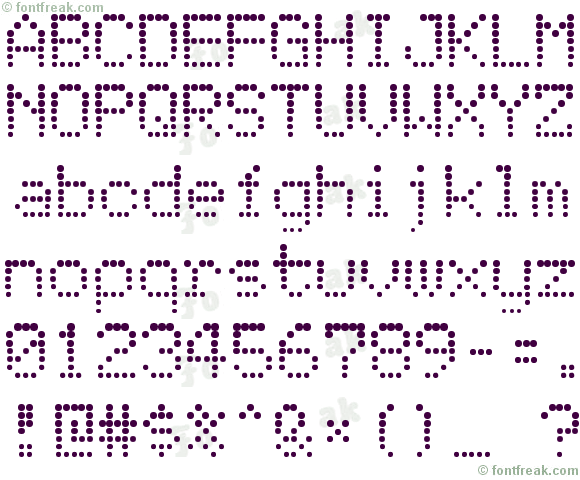
Atomic Clock Radio
The Atomic Clock Radio font by Pizzadude is a unique display typeface that brings a fun, retro vibe to any design project. This font features a distinctly decorative style, resembling the dots and dashes of vintage digital displays. The stroke weight is uniform, creating a balanced appearance that is both playful and engaging. The spacing between characters is tight, which adds to its compact, modular look, reminiscent of old-school radio and clock interfaces.
Ideal for a range of creative applications, the Atomic Clock Radio font is perfect for projects that require a nostalgic touch. It works exceptionally well for album covers, particularly in genres like electronic or retro music. Additionally, this font can add character to event posters and flyers, especially those themed around technology, science fiction, or vintage aesthetics. Small business owners can leverage it for branding, creating memorable logos and signage that stand out in a crowded marketplace. Content creators can also benefit from this typeface, using it in social media graphics or blog headers that aim to capture a specific, retro-futuristic theme.
The target audience for this font includes graphic designers looking to infuse creativity into their work, small business owners seeking a distinctive brand identity, and content creators eager for eye-catching typographic solutions. The Atomic Clock Radio font free download is an excellent resource for anyone aiming to make their designs pop with a touch of nostalgia.
What sets the Atomic Clock Radio font apart is its ability to blend a quirky aesthetic with versatility. Whether you’re designing for print or digital media, this font captures attention and evokes curiosity, making it a standout choice for projects that need a unique and memorable typographic element.